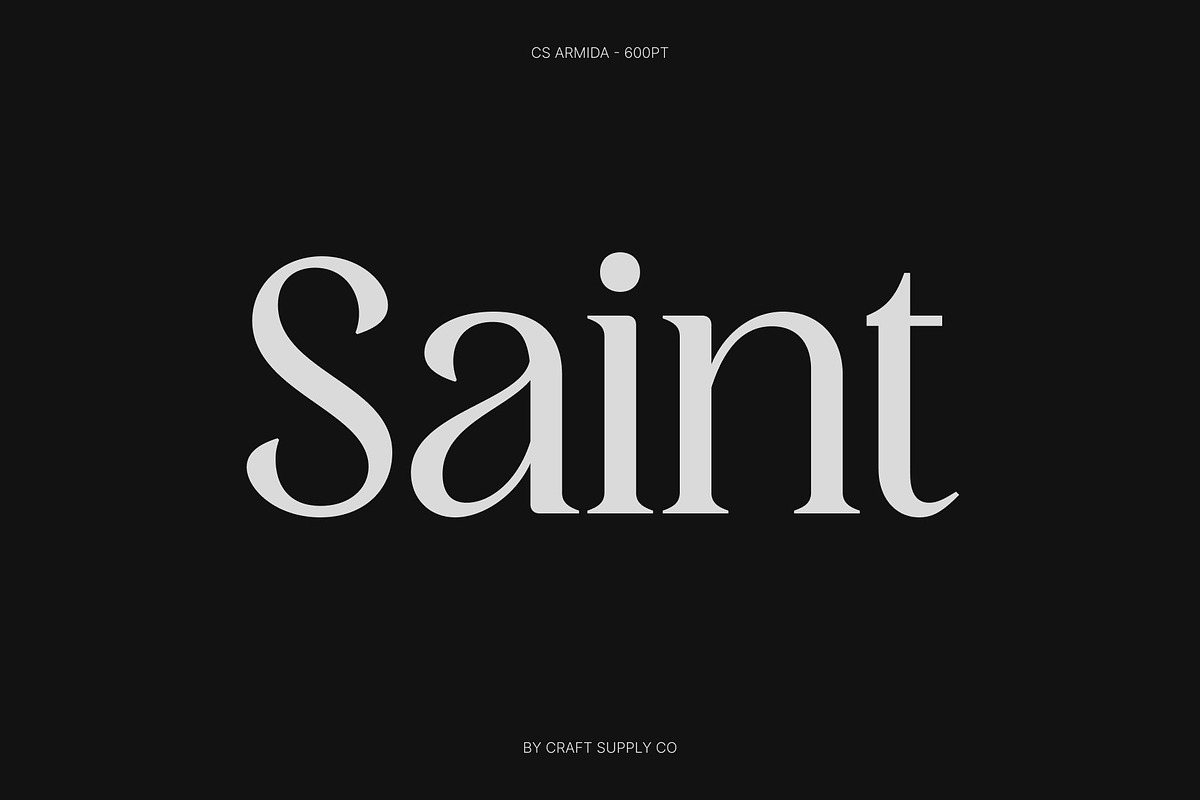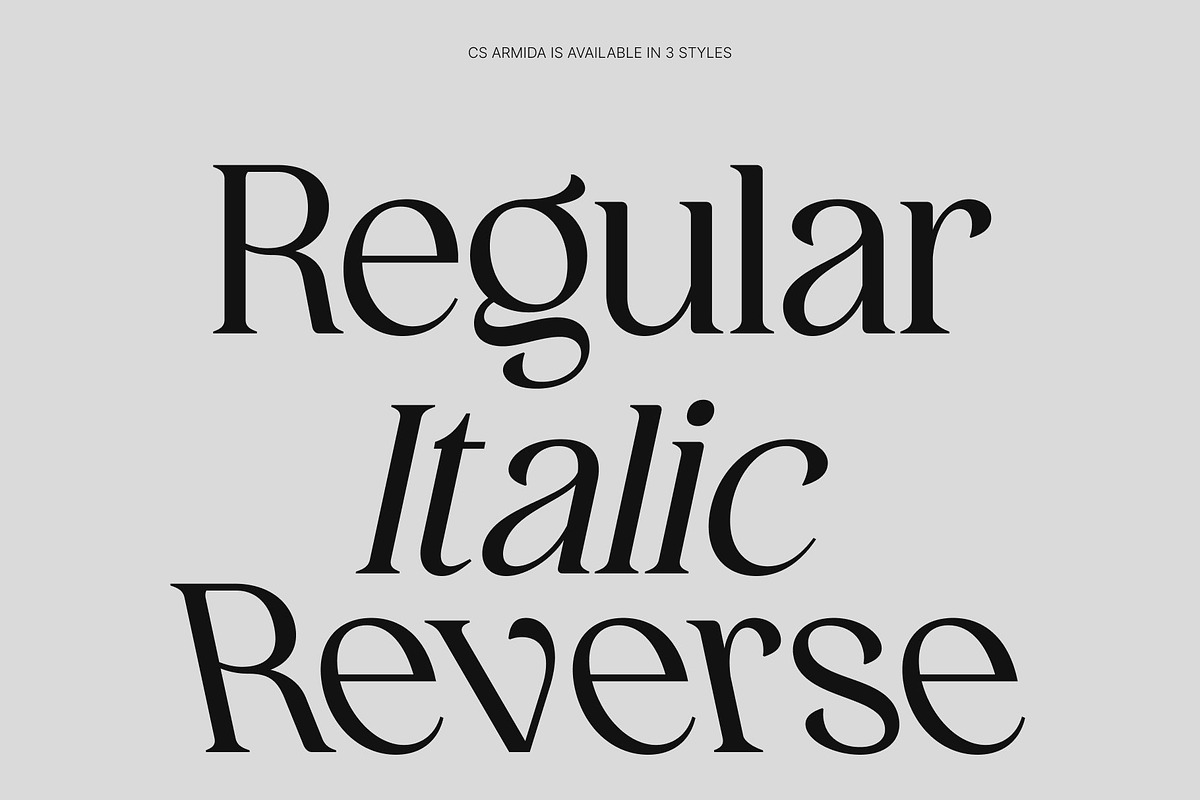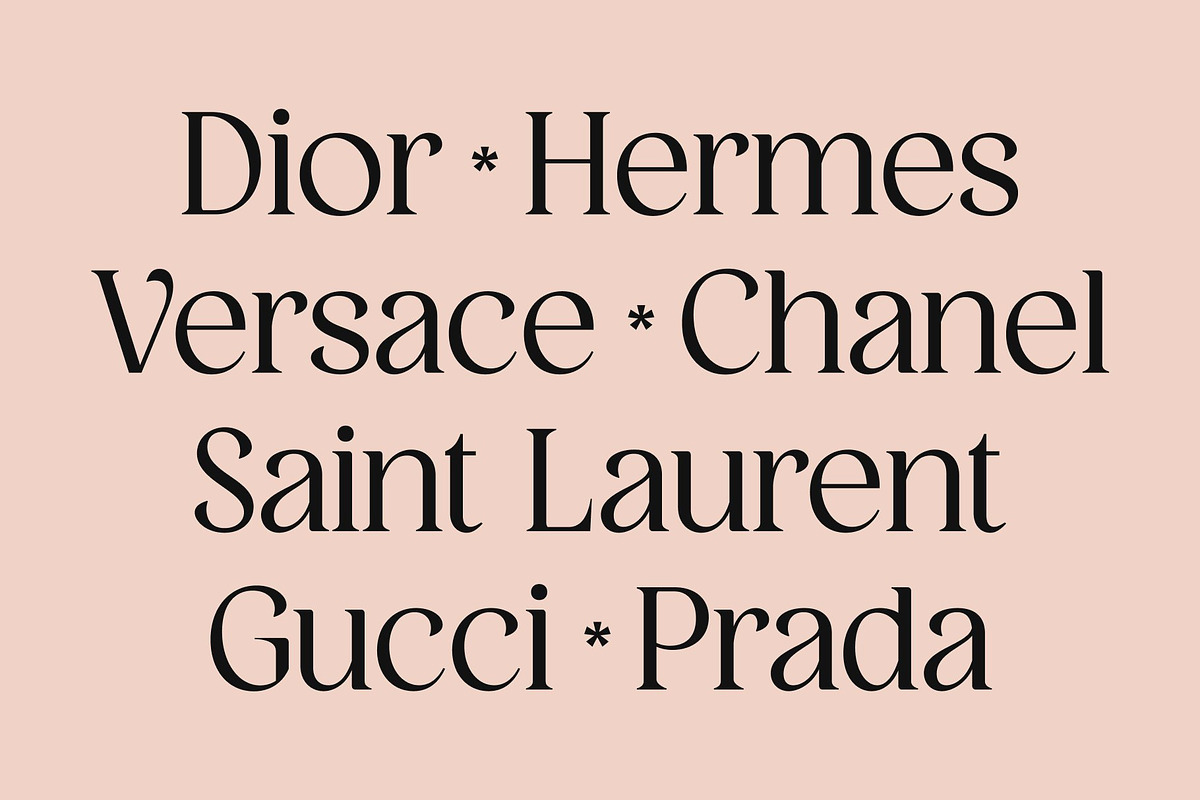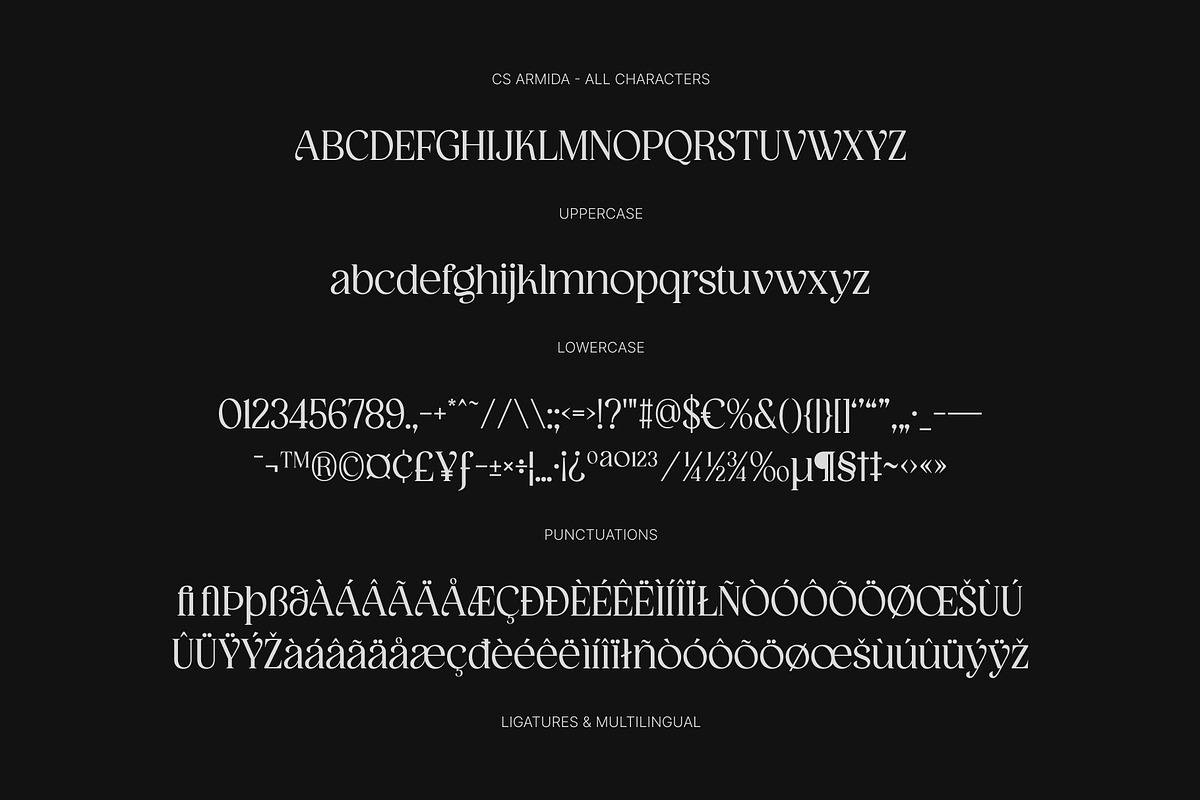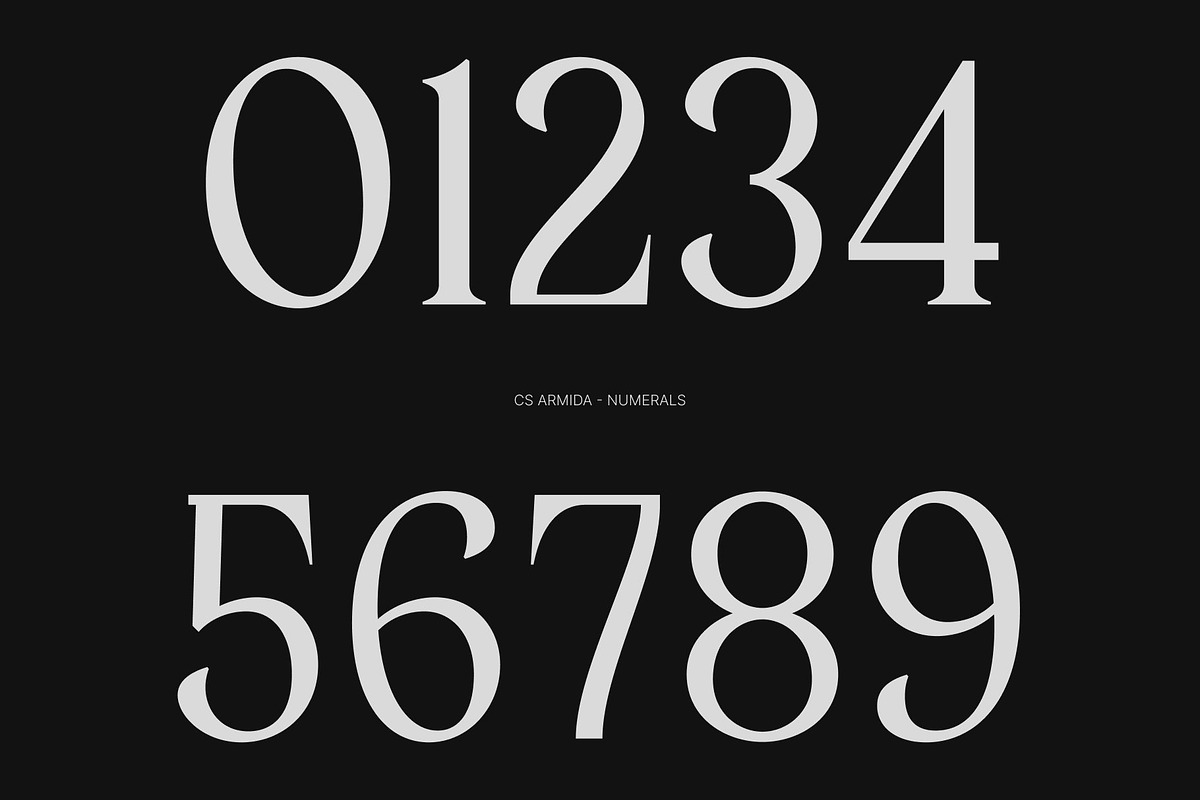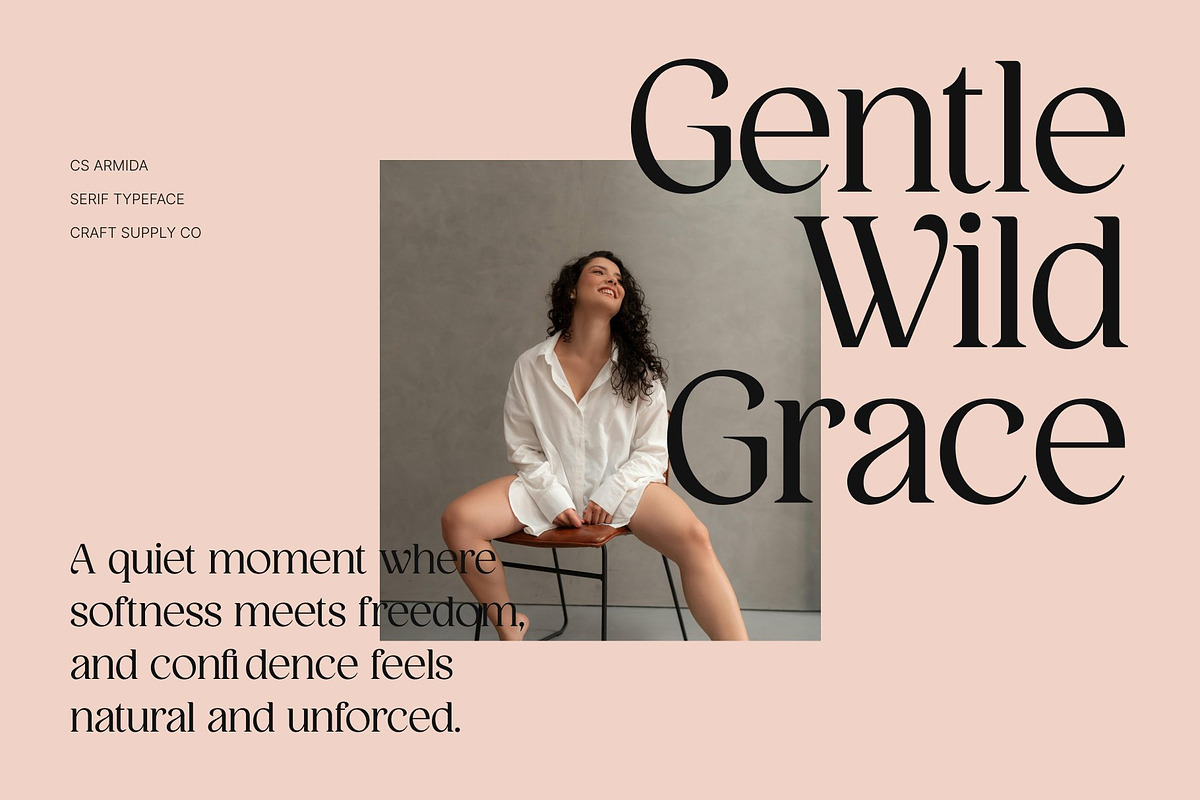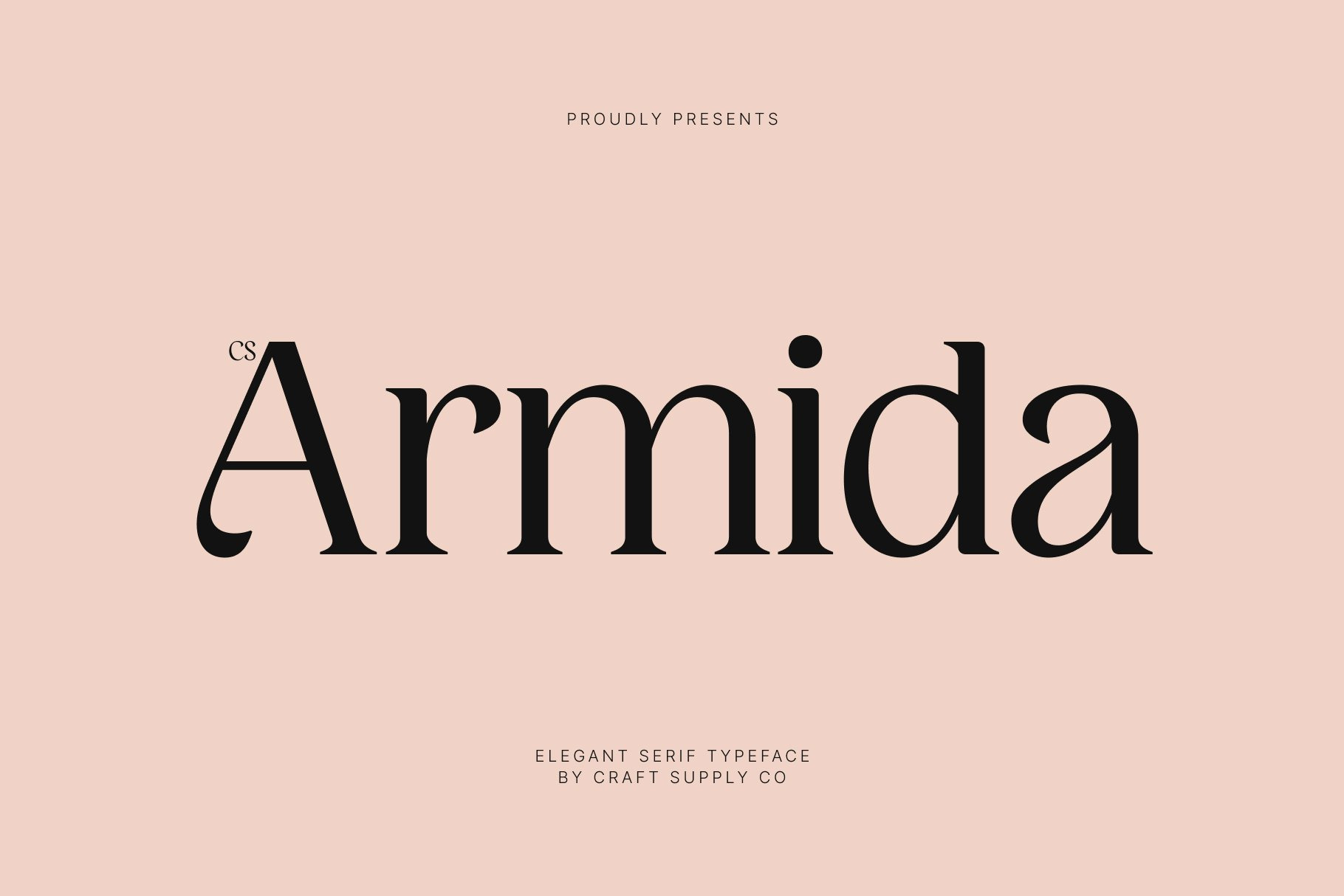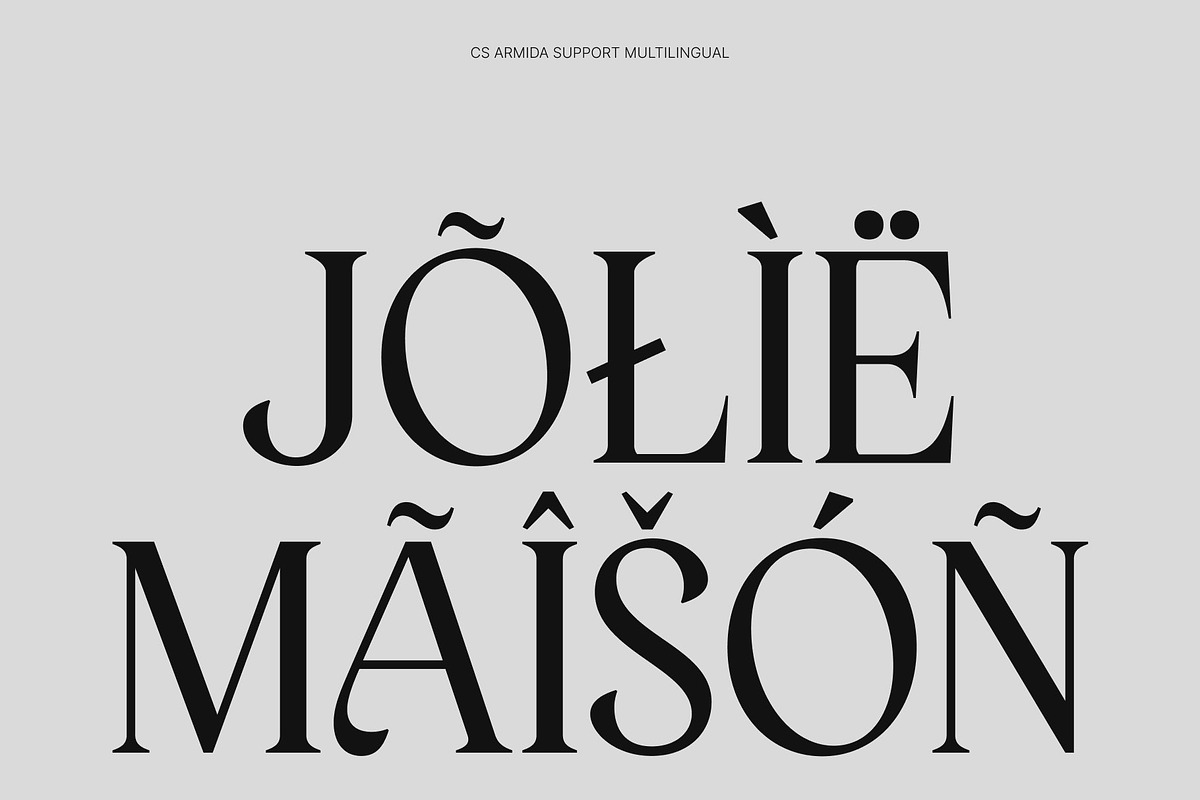
CS Armida – Elegant Serif Font
CS Armida – Modern Serif with Charming Elegance
Modern Serif with Beautiful Serifs This is a modern serif font designed to radiate refinement through its beautifully crafted serifs and graceful proportions. Each character feels polished and expressive, creating a sophisticated tone that instantly elevates any layout. Its elegant structure blends classic inspiration with contemporary styling, resulting in a typeface that feels timeless yet fresh.
Delicate Curves with a Soft Luxurious Feel What truly sets this font apart is the delicate curves that flow naturally throughout the letterforms. These subtle details introduce warmth and charm while maintaining a refined, high-end appearance. The balance between sharp serif details and soft curves gives the font a graceful personality that feels both classy and inviting.
Sophisticated Yet Charming Versatility This font doesn’t only look sophisticated it also brings a charming character that adapts beautifully across different design needs. Its clean structure keeps text readable and polished while its elegant personality adds visual interest. This makes the font ideal for projects that require both beauty and professionalism without feeling overly formal.
Perfect for Beauty, Branding, and Elegant Design This font shines in luxury branding, posters, editorials, and beauty-focused designs. From elegant crafting and layout design to advertising, packaging, and design templates, this font delivers a refined and charming presence that enhances every creative project with effortless sophistication.
CS Armida Regular
CS Armida Italic
CS Armida Reverse Italic